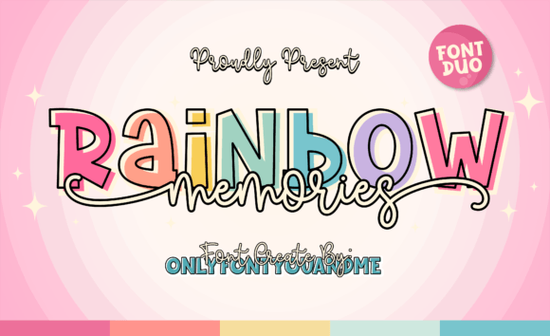
If you've been searching for a handwritten font that feels personal and refined, the Rainbow Memories Font is worth a close look. This handwritten duo font pair combines flowing curves with smooth, elegant lines the kind of lettering that makes invitations, labels, and branding feel genuinely heartfelt. It's designed to work across a wide range of creative projects, from wedding stationery to print-on-demand products.
What Makes Rainbow Memories Font Different from Other Handwritten Fonts?
Plenty of script and display fonts claim to be "elegant," but Rainbow Memories actually delivers on that promise without looking stiff or overly formal. Each letter carries a distinctive character the strokes feel organic, almost like they were written with a real pen on textured paper. The duo font setup gives you two complementary styles, so you can mix and match for headings and body text without the designs clashing.
What stands out most is the balance. Some handwritten fonts lean too casual and look messy at small sizes. Others go so far into calligraphy territory that they become hard to read. Rainbow Memories sits comfortably in between expressive enough to catch the eye, but clean enough for practical use on stickers, greeting cards, and product tags.
What Projects Work Best with This Font?
Based on the font's style and versatility, here are some popular uses among designers and crafters:
- Wedding invitations and save-the-date cards The flowing letterforms add romance without being over-the-top.
- Print-on-demand products Think mugs, tote bags, and t-shirts with heartfelt quotes or personalized names.
- Sticker sheets and planner accessories Especially useful for Etsy sellers creating custom journaling stickers.
- Social media graphics Instagram quotes, Pinterest pins, and story templates benefit from a personal, human touch.
- Brand logos and packaging Small businesses selling handmade goods, candles, or skincare often pair fonts like this with complementary display styles for a polished brand identity.
- Heartfelt letters and greeting cards Whether it's a birthday message or a thank-you note, the font's warmth comes through clearly.
How Do You Pair Rainbow Memories with Other Fonts?
Good font pairing is about contrast. Since Rainbow Memories is a handwritten duo font, it works well alongside clean sans-serif fonts or bold display typefaces. Here are a few combinations that tend to work nicely:
- Rainbow Memories + a simple sans-serif Use the handwritten style for headings and a clean sans-serif for body copy. This keeps things readable while maintaining personality.
- Rainbow Memories + a playful display font For kids' products or fun branding, try pairing it with something bold like a bubbly display option or a retro-style typeface.
- Both Rainbow Memories styles together That's the beauty of a duo font. The two styles are designed to complement each other, so you can use one for the main heading and the other for subheadings or accents.
For projects that need a cheerful, colorful vibe like party invitations or kids' room decor pairing it with something like a bright, playful font can create a lively, eye-catching layout.
Does Rainbow Memories Font Support Multiple Languages?
Is This Font a Good Fit for Small Business Branding?
Absolutely especially if your brand identity leans toward warmth, handmade quality, or personal connection. Small businesses in the craft, beauty, food, or lifestyle space often need fonts that feel approachable without looking amateur. Rainbow Memories fits that middle ground well.
Pair it with a structured layout and a consistent color palette, and you've got a brand look that feels intentional and trustworthy. If you want something slightly more grounded for your secondary typography, consider using a textured, earthy display font for contrast.
Quick Checklist Before You Use Rainbow Memories Font
- ✅ Test the font at different sizes to see where it reads best
- ✅ Pair it with a clean secondary font for body text
- ✅ Try both styles in the duo set to find the right combination for your project
Tip: Start with one project like a simple greeting card or social media quote and get a feel for how the font behaves. Once you're comfortable with its rhythm and spacing, you'll naturally find more ways to use it across your creative work.